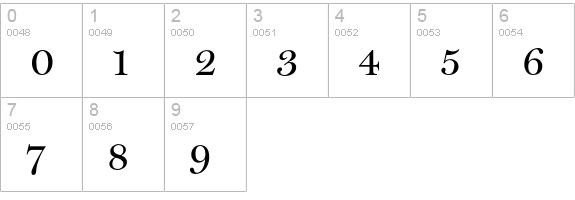
MillerDisplay-RomanSC Font Details
The MillerDisplay-RomanSC font is a classic and elegant typeface that exudes sophistication and charm. Its slender serifs and refined letterforms make it perfect for adding a touch of timeless beauty to any design project. With its delicate curves and graceful proportions, this font is sure to elevate your work to new heights. What sets the MillerDisplay-RomanSC font apart is that it is available for free download at FontsMarket.com. This means that you can easily access this exquisite typeface without any cost, making it a valuable addition to your font collection. Whether you're working on a branding project, editorial design, or any other creative endeavor, the MillerDisplay-RomanSC font will bring a touch of refinement and elegance to your work. Download it today and experience the beauty and versatility of this exquisite font for yourself.